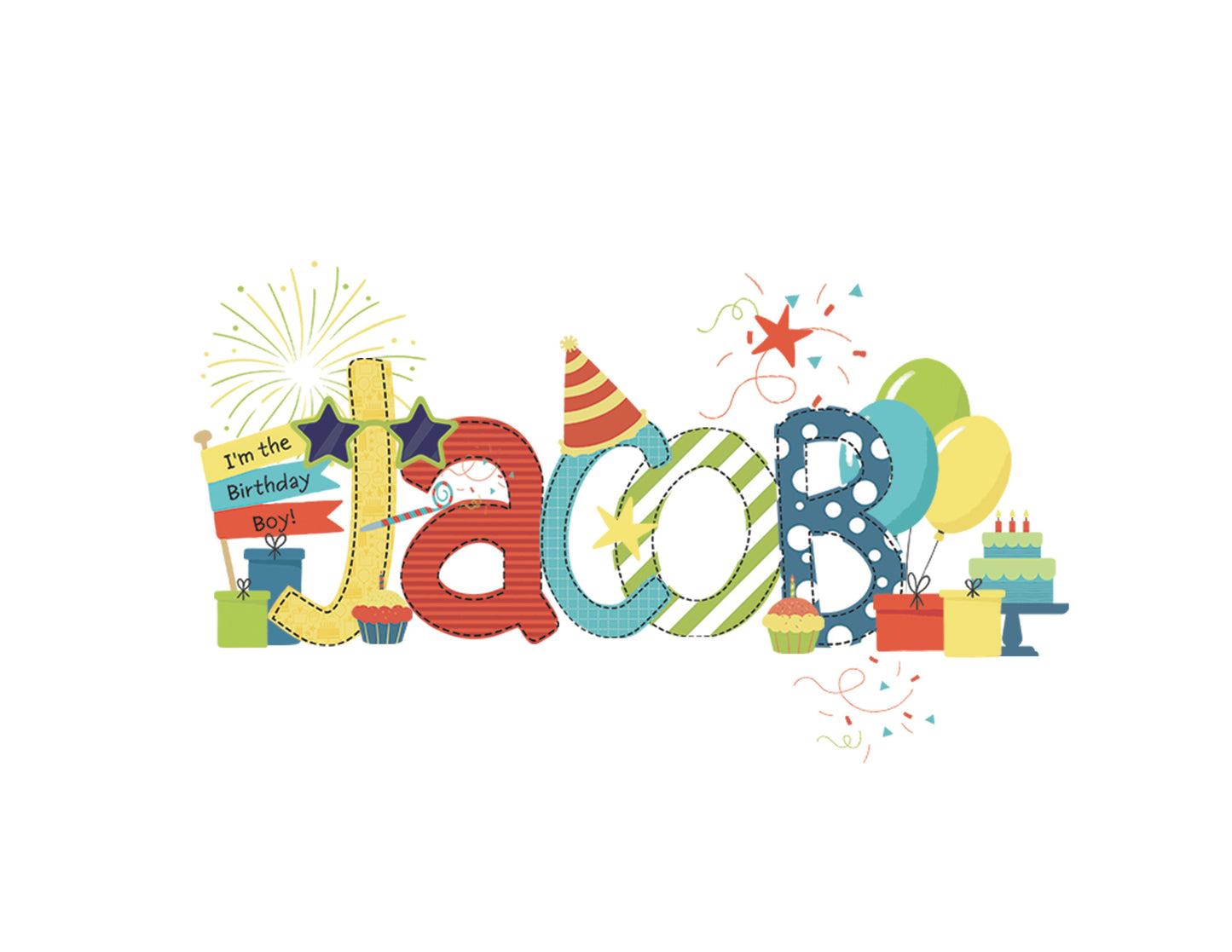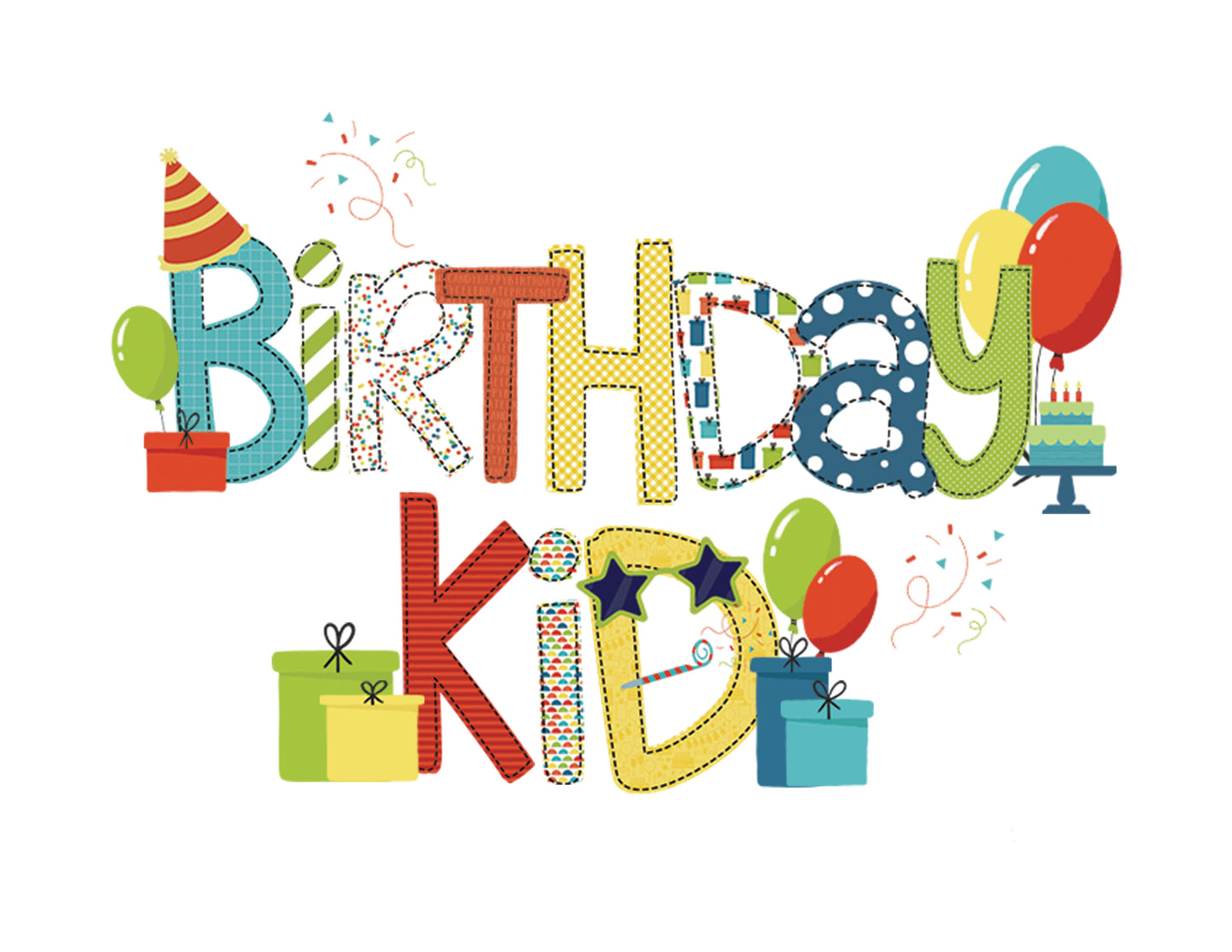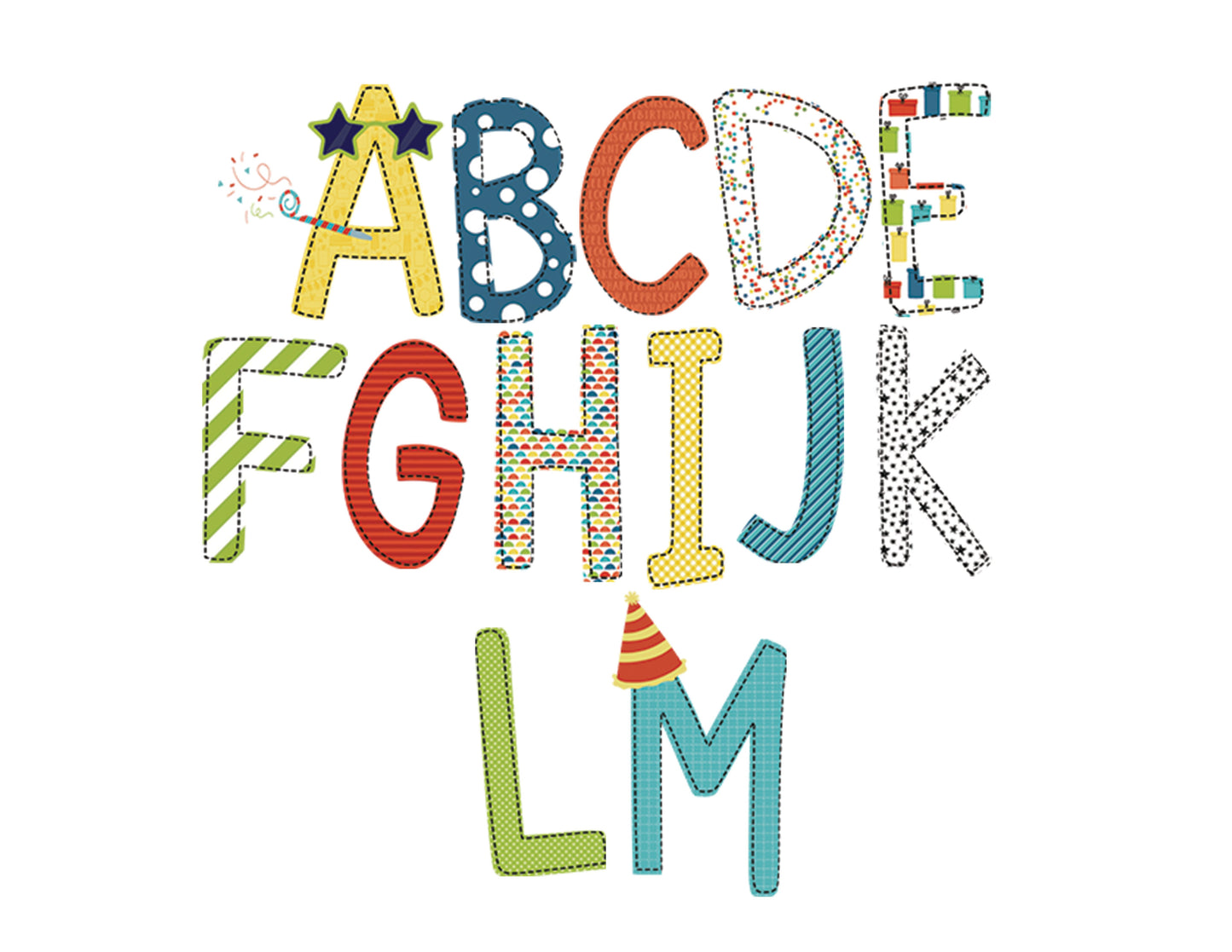
Birthday Kid Alpha Font
Add the perfect personalized touch any birthday outfit. This set includes 13 png faux applique alpha fonts and over 25 matching elements to fully customize your design.